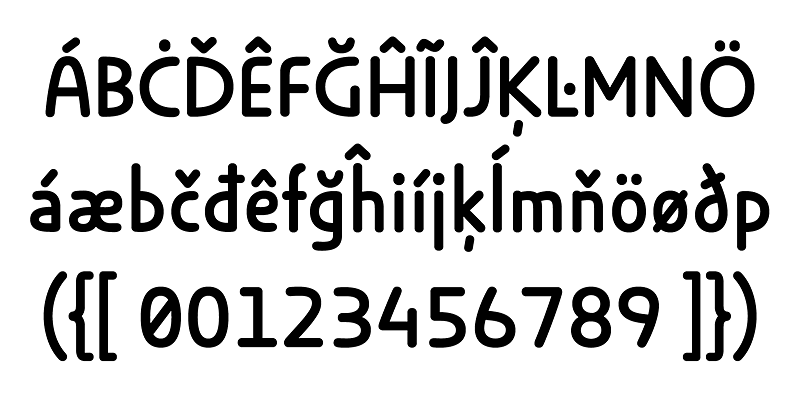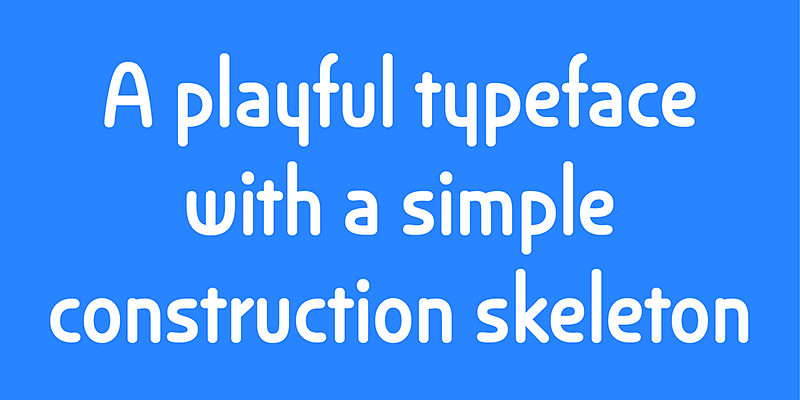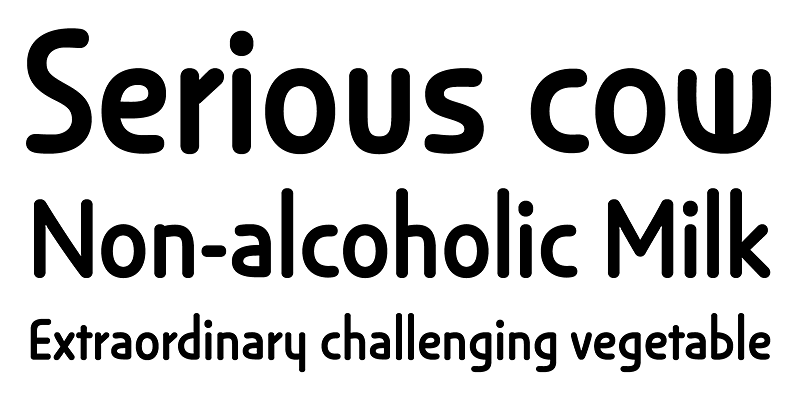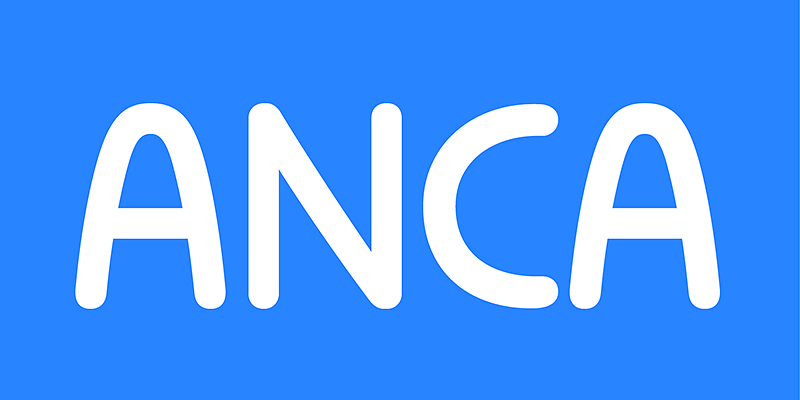
Anca typeface started as a commission work for Fest Anca, an international animation festival. They needed something to complement the corporate identity of the festival. Inspiration came from a sketch made by my friend long time ago, which had a tremendous potential. As letters were digitized and the basic alphabet was completed, a very practical and universal typeface resulted.
The whole type family has a playful and simple look with rounded stroke endings as well as long ascenders. The construction skeleton uses the minimum number of strokes and as a consequence, some original letter shapes (Q, w, j, &, A, §) were produced. Despite the fact that most letter shapes are based on geometry, some strokes are intentionally irregular, which creates a very natural feeling. Anca is appropriate for setting short paragraphs, headings and big inscriptions.